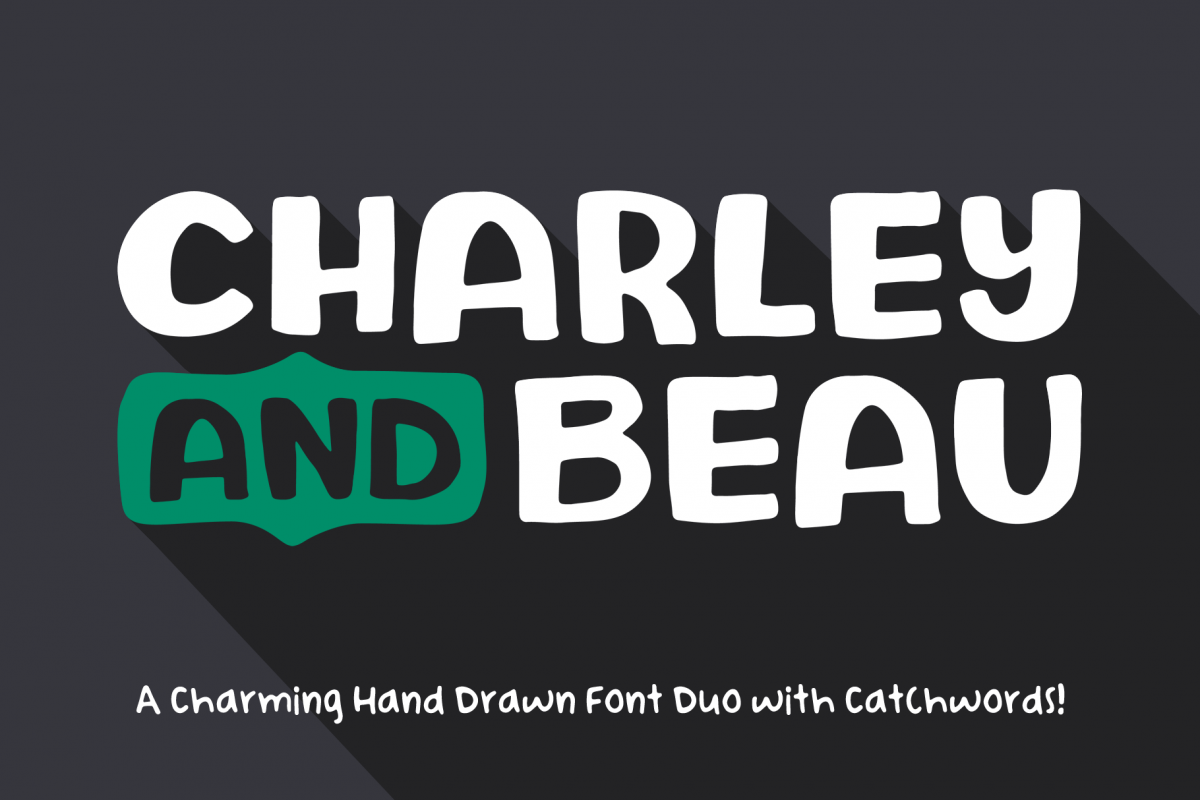
Charley and Beau Font Duo
Meet Charley and Beau! A charming font duo that combines bold block letters with a simple hand-written sans. It also includes a set of catchwords.